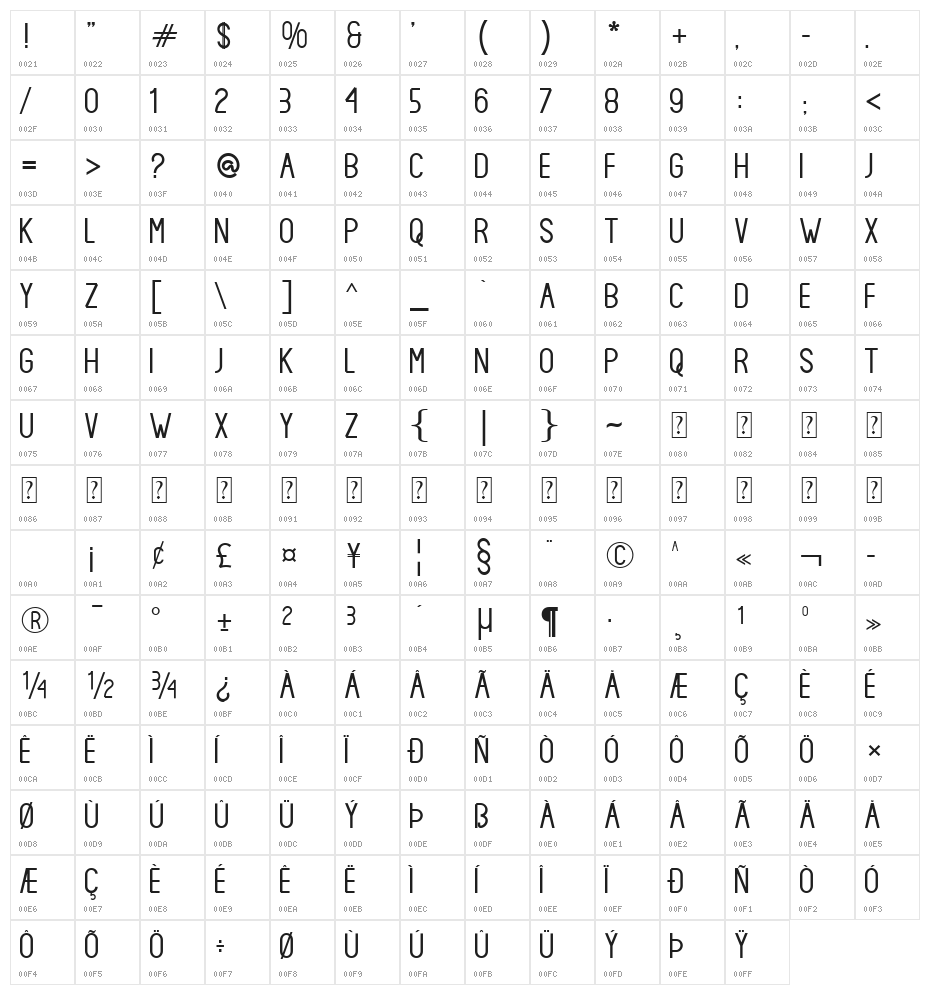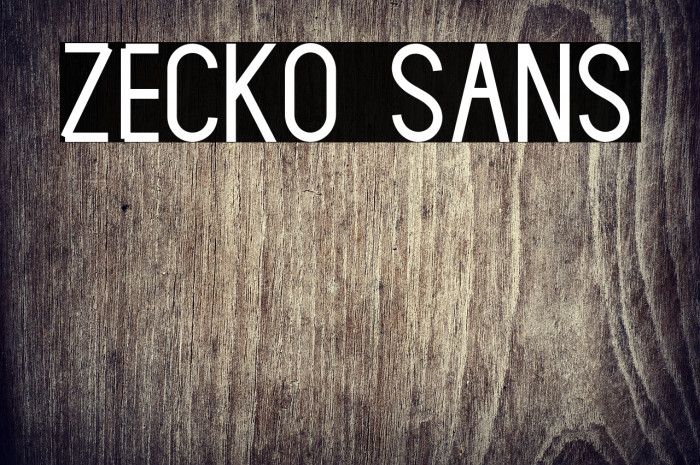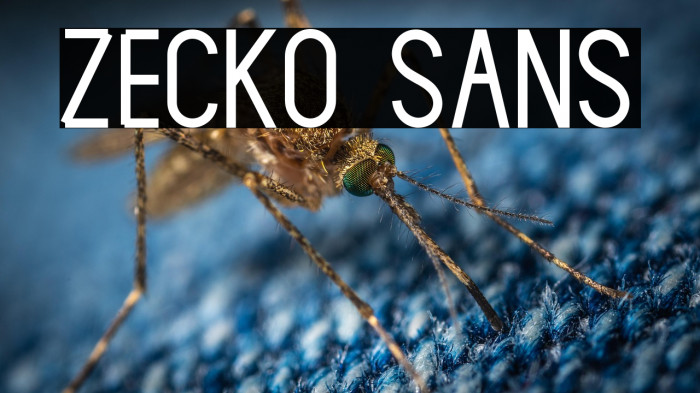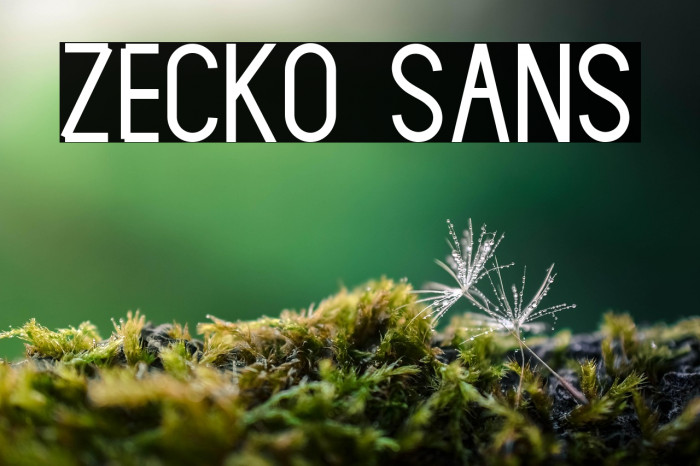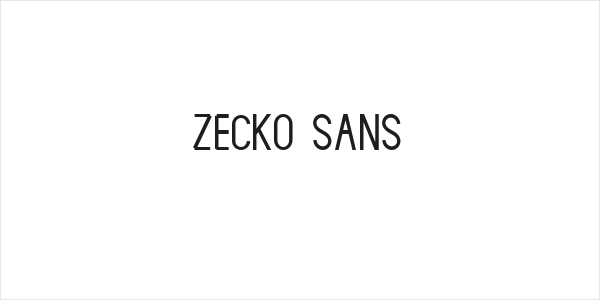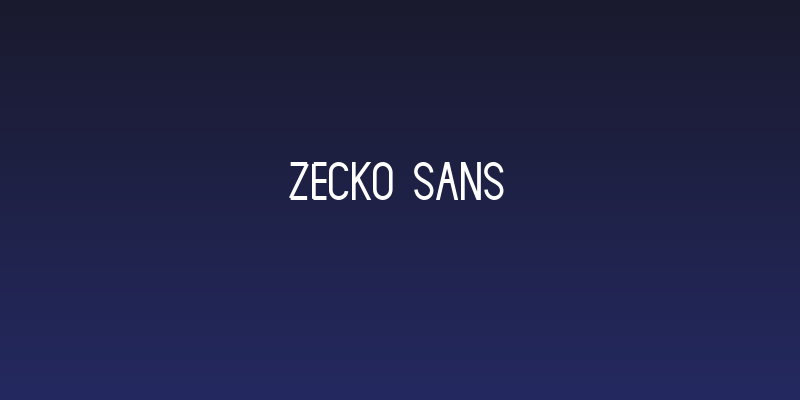
Zecko Sans Font
Zecko Sans Description
This font features a clean and modern sans-serif design, characterized by its geometric shapes and uniform stroke widths. The uppercase and lowercase letters are well-balanced, offering a sense of clarity and precision. The numbers are distinct and easy to read, making them suitable for various applications. Special characters are included, maintaining the font's cohesive style. The overall appearance is sleek and professional, ideal for contemporary design projects.